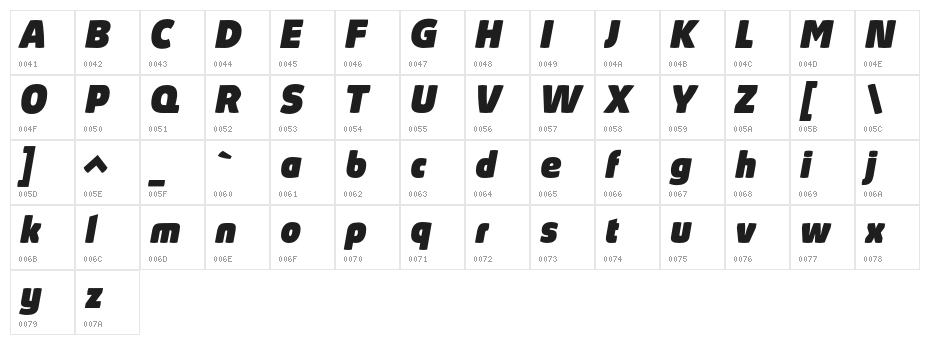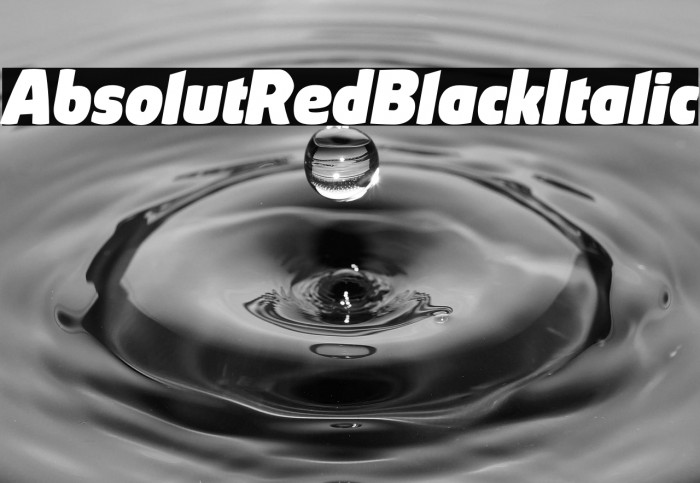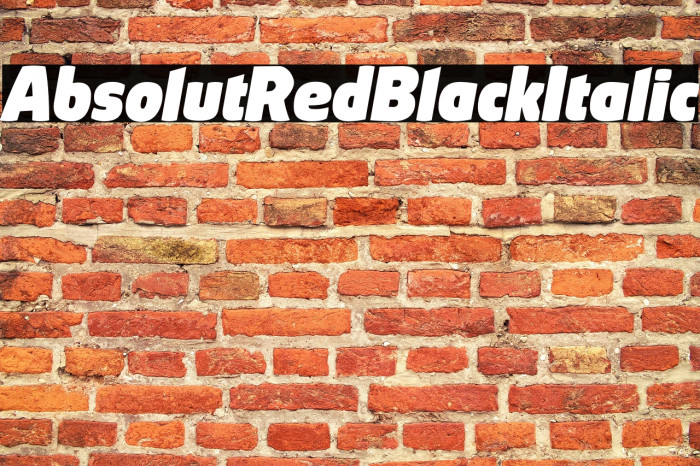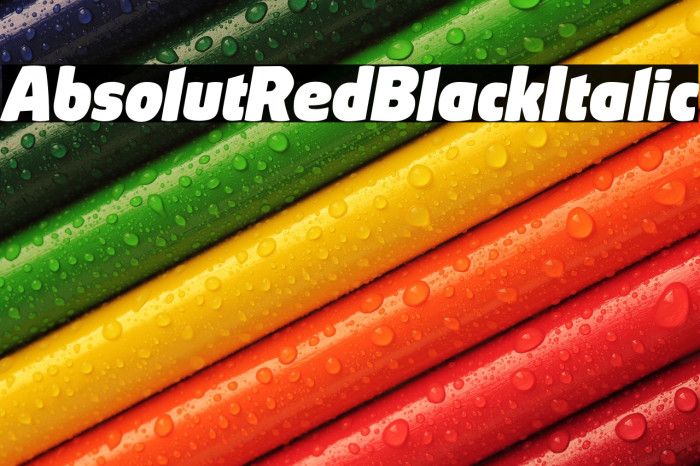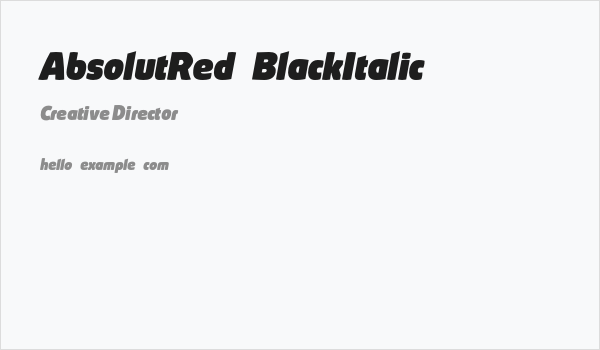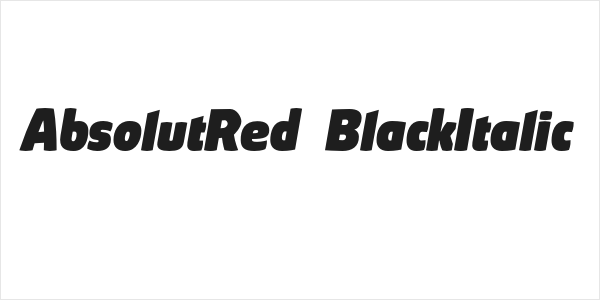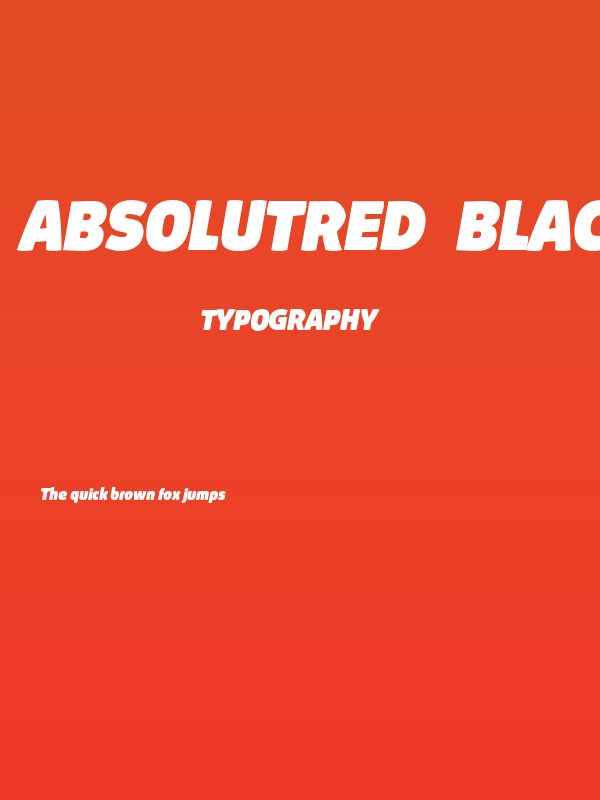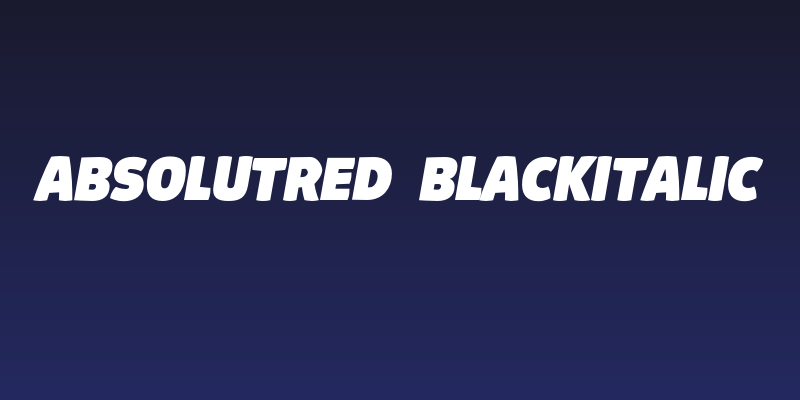
AbsolutRed-BlackItalic Font
AbsolutRed-BlackItalic Description
This font features bold, italicized characters with a strong presence, making it ideal for impactful designs. The letters are slightly condensed, giving a compact and efficient look. The strokes are thick and consistent, providing a uniform appearance across all characters. The italic slant adds a dynamic and modern touch, while the bold weight ensures readability and emphasis. This font is well-suited for headlines, logos, and any design that requires a bold statement.
| Proposed Projects | Ideal for branding, advertising, headlines, and logo design. |